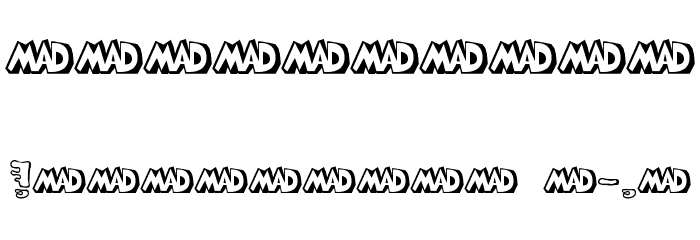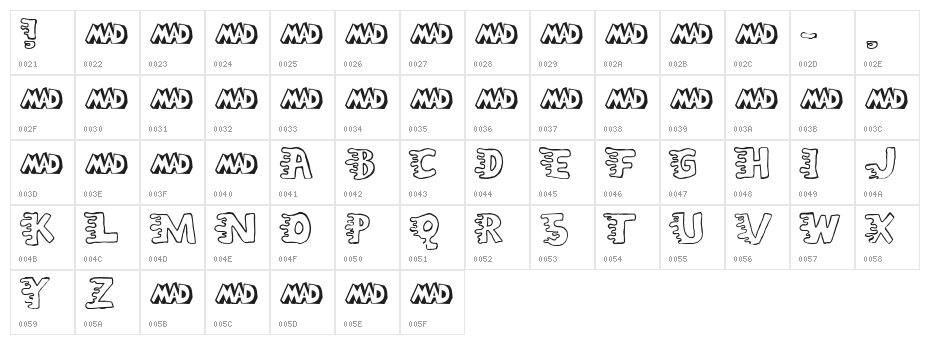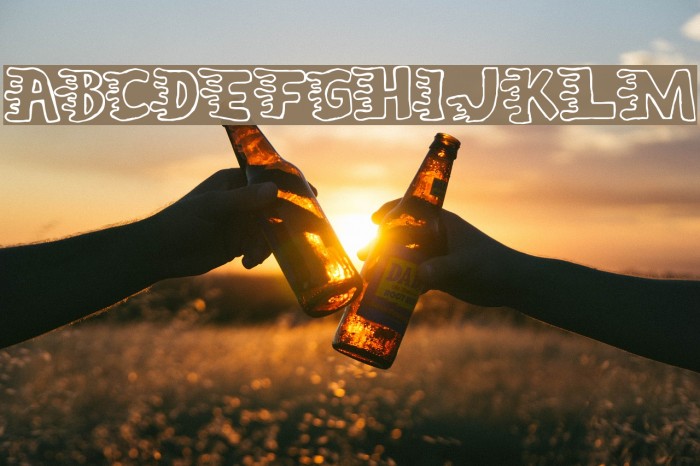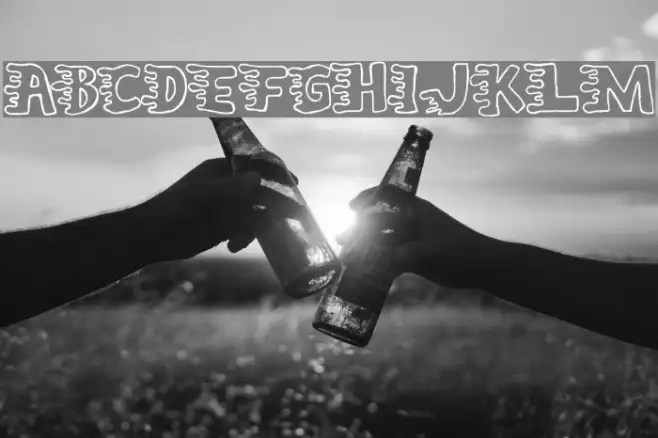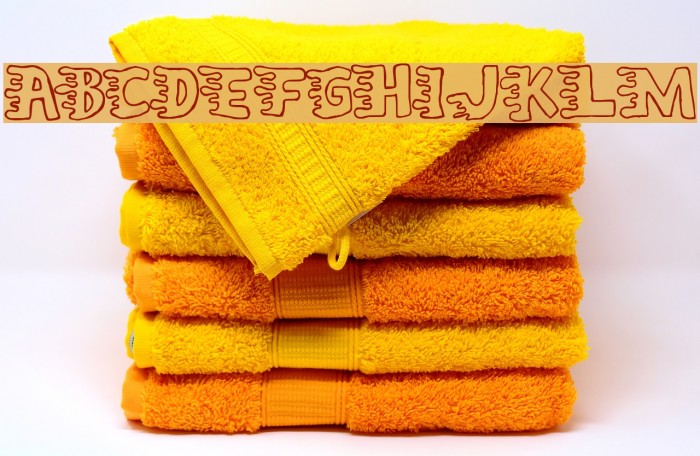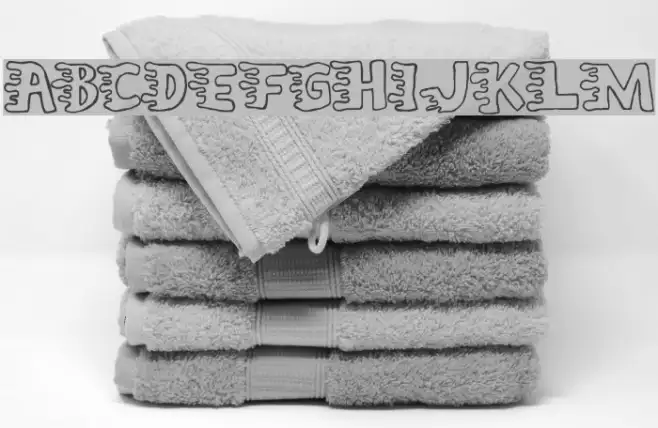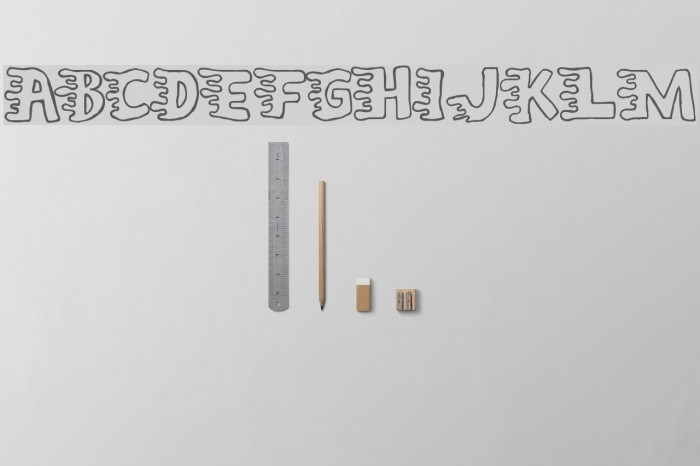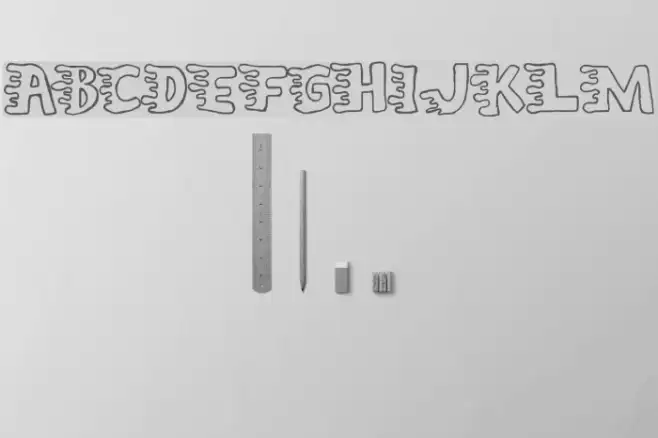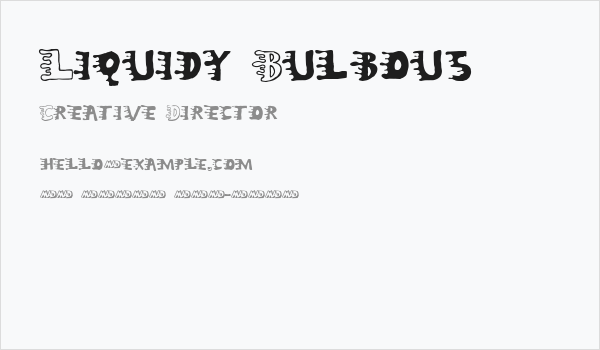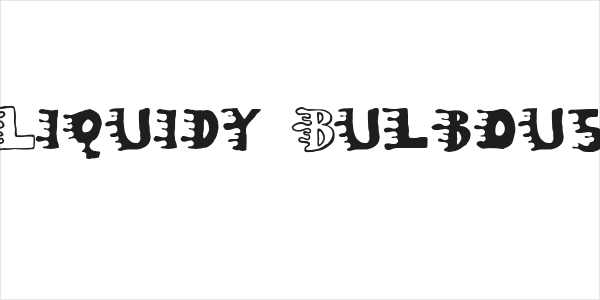
Liquidy Bulbous Font
Liquidy Bulbous Description
This font features a playful and whimsical design, characterized by its bulbous and liquid-like appearance. The letters have a unique, wavy outline that gives them a dynamic and fluid feel, reminiscent of dripping paint or melting wax. The bold and exaggerated curves create a sense of movement and energy, making it stand out as a decorative choice. The font maintains a consistent thickness throughout each character, contributing to its cohesive and unified look. Its distinctive style is both eye-catching and memorable, suitable for projects that require a fun and creative touch.
| Proposed Projects | Ideal for children's book covers, playful posters, creative branding, and event invitations. |